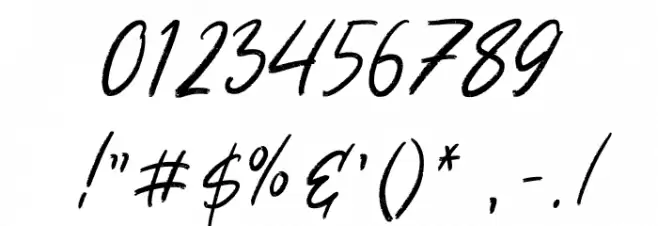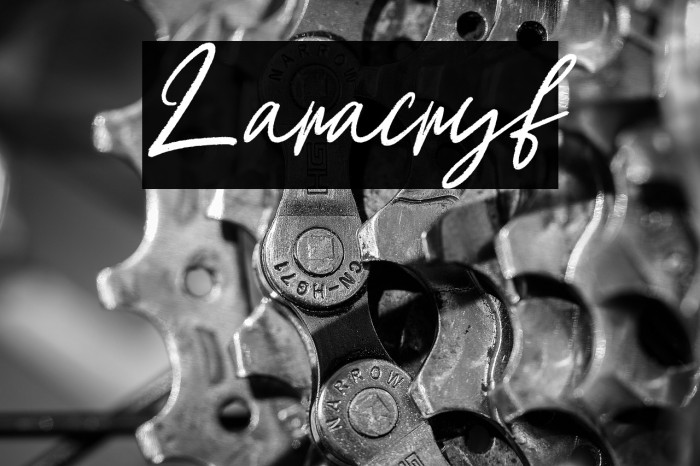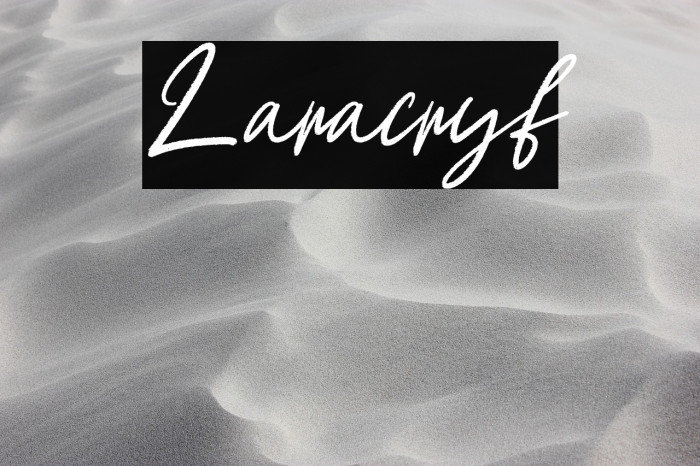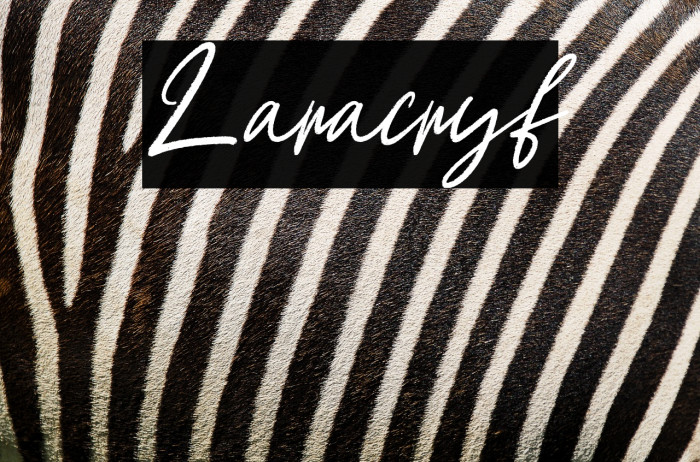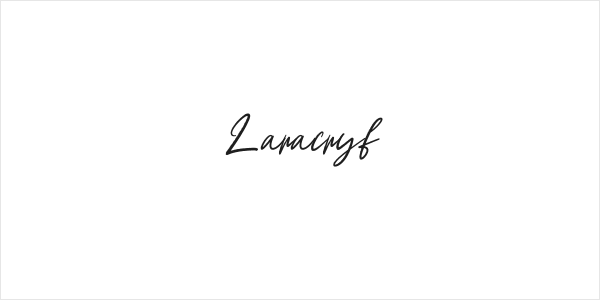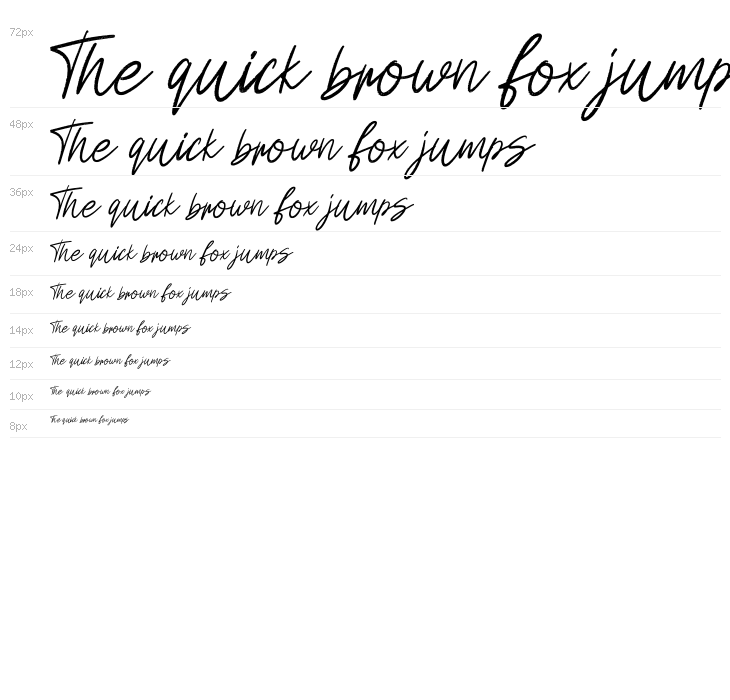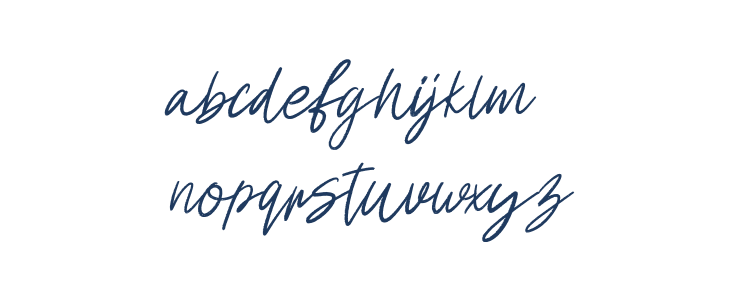
Laracryf Font
Laracryf Description
This font features a dynamic and fluid script style, characterized by its elegant and flowing letterforms. The strokes are smooth and connected, giving it a handwritten appearance that is both stylish and readable. The uppercase letters are bold and slightly slanted, while the lowercase letters maintain a consistent flow with a slight inclination. The numerals and special characters are crafted to match the overall aesthetic, ensuring a cohesive look across all text elements. This font's design is suitable for creating a personal and approachable feel in various design projects.
A fluid and elegant script font with a handwritten style from Regular fonts.
- Proposed Projects: Ideal for wedding invitations, greeting cards, branding, and social media graphics.
- Use Case: Logos, Headlines, Invitations